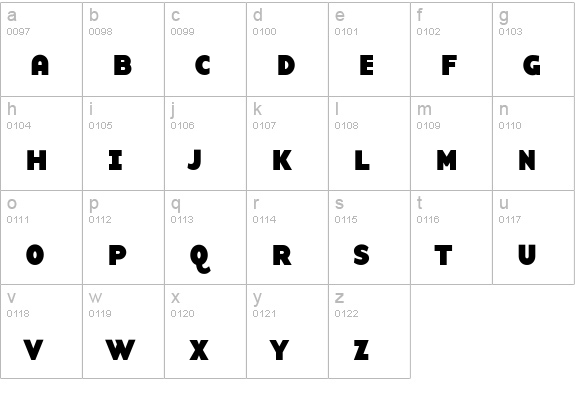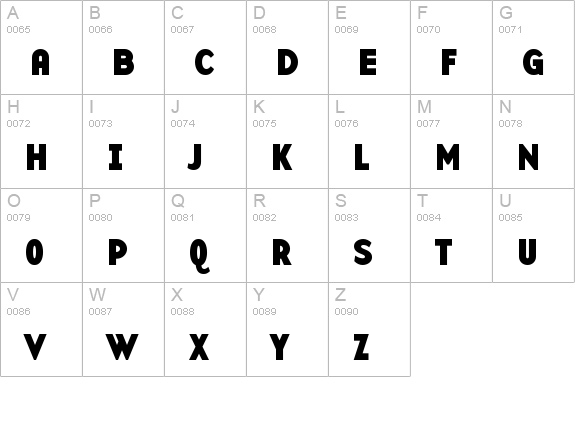
BaseTwelveSansSCB Font Details
Introducing BaseTwelveSansSCB font, a modern and versatile typeface designed to elevate your creative projects to new heights. This sleek and stylish font features clean lines and a contemporary aesthetic, making it perfect for a wide range of design applications. BaseTwelveSansSCB is not only visually appealing but also highly functional, with excellent legibility in both print and digital formats. Whether you're working on branding, advertising, web design, or any other project, this font is sure to make a statement. Best of all, BaseTwelveSansSCB is completely free to download at FontsMarket.com. Now you can access this premium font without breaking the bank, allowing you to unleash your creativity without any limitations. Don't miss out on this fantastic opportunity to enhance your designs with the elegant and sophisticated BaseTwelveSansSCB font.